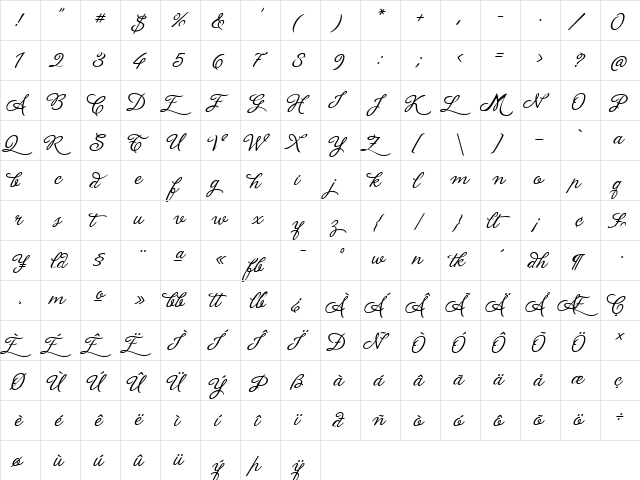
La Portenia de la Boca Regular
| Foundry | Sudtipos |
Design Context for La Portenia de la Boca Typeface
La Portenia de la Boca is a composed and adaptable typeface that performs quietly and consistently across a wide range of design contexts.
Pro Tip: Use La Portenia de la Boca in both headline and body roles to test its range before committing to a single application.